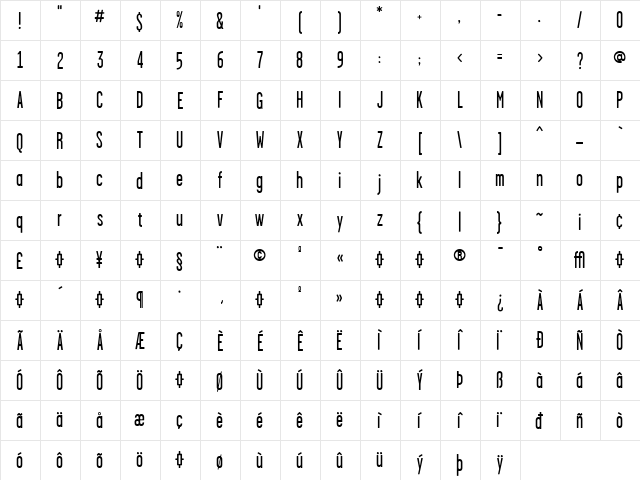
GarageGothic-Regular Regular
Design Context for GarageGothic-Regular Typeface
GarageGothic-Regular has the quiet confidence of well-executed sans-serif typography: versatile, unobtrusive, and dependable at any size.
Font Pairing: Works well alongside a characterful serif or display font that can carry the expressive load while GarageGothic-Regular handles the functional copy.
Pro Tip: Use GarageGothic-Regular for UI labels, navigation, and short-form body copy where clean legibility is the priority.